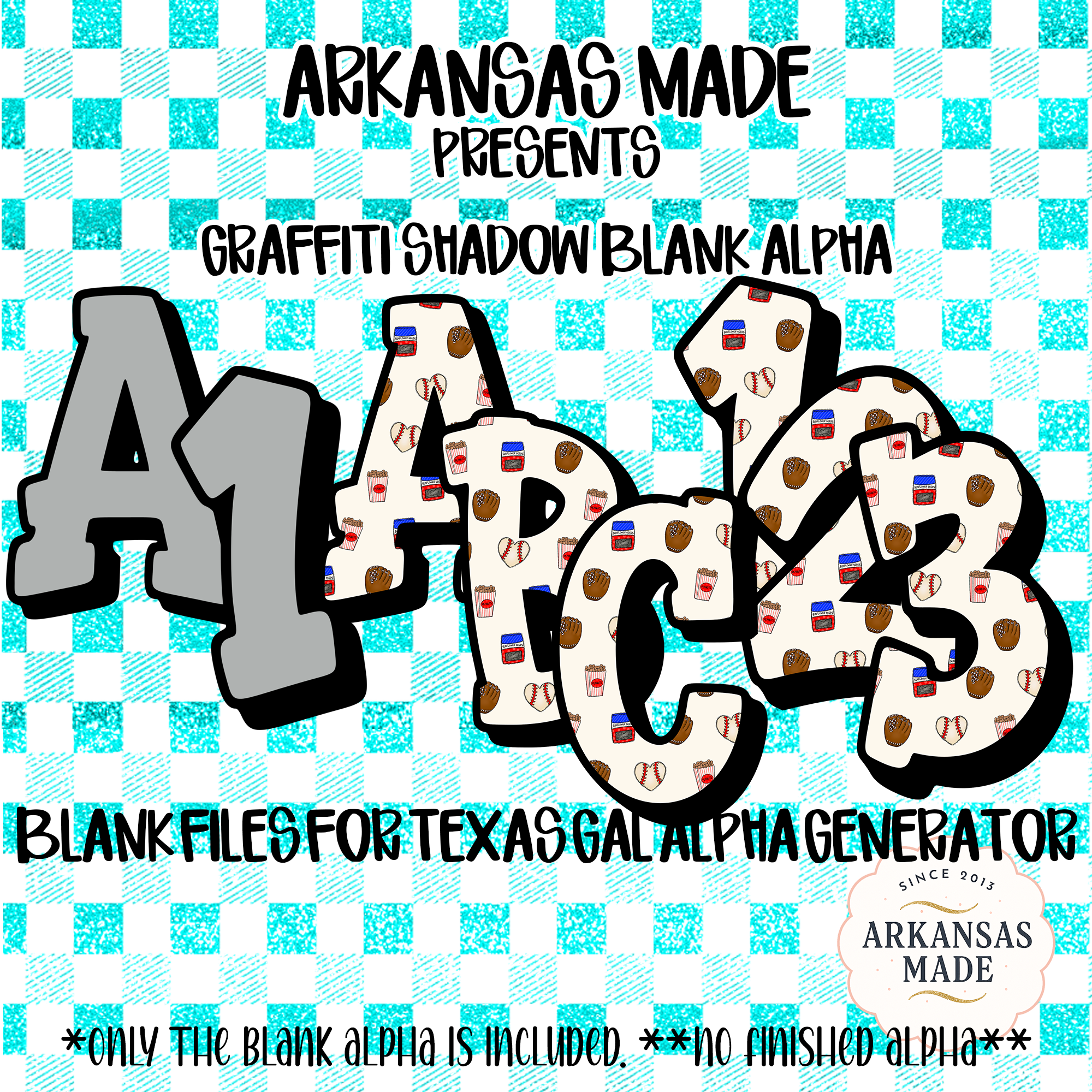
Create custom baseball-themed designs with this Blank Alpha PNG digital download. Perfect for sublimation, this graffiti shadow font includes all letters and numbers. Unleash your creativity with a versatile digital alphabet featuring a dynamic graffiti shadow style, ready for your unique patterns. Ideal for crafters, small businesses, and sports enthusiasts, it’s designed to be filled with your favorite textures or colors. A fantastic personalized gift for baseball coaches, players, or fans, perfect for custom apparel, accessories, or home decor.